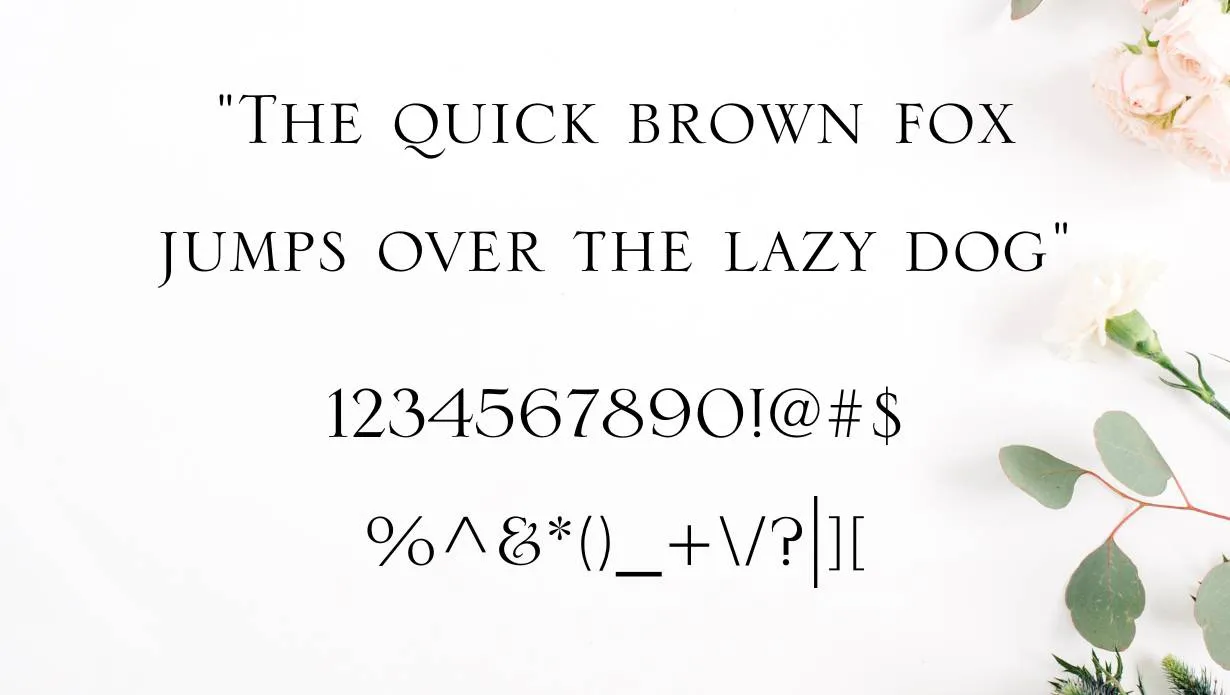
Serlio LH Font is an elegant and refined typeface known for its sophisticated and ornate appearance. Its decorative elements and classic design make it perfect for formal invitations, certificates, and prestigious event materials.
| Name | Serlio LH Font |
| Designer | Linotype |